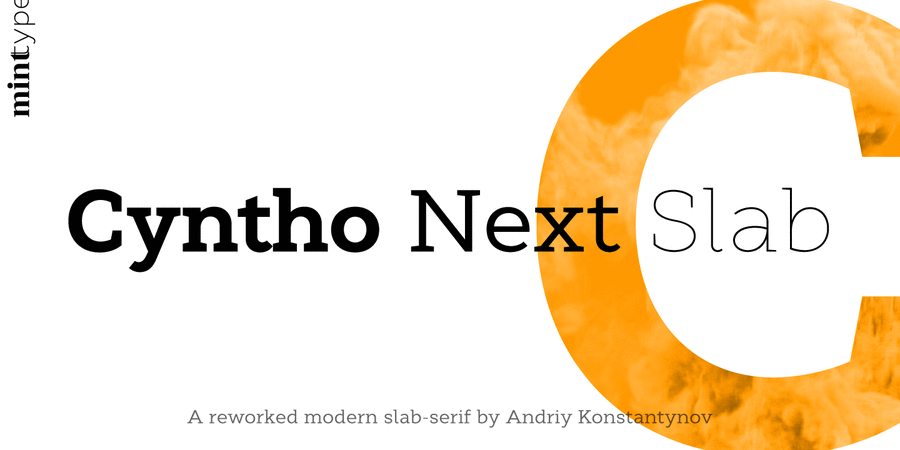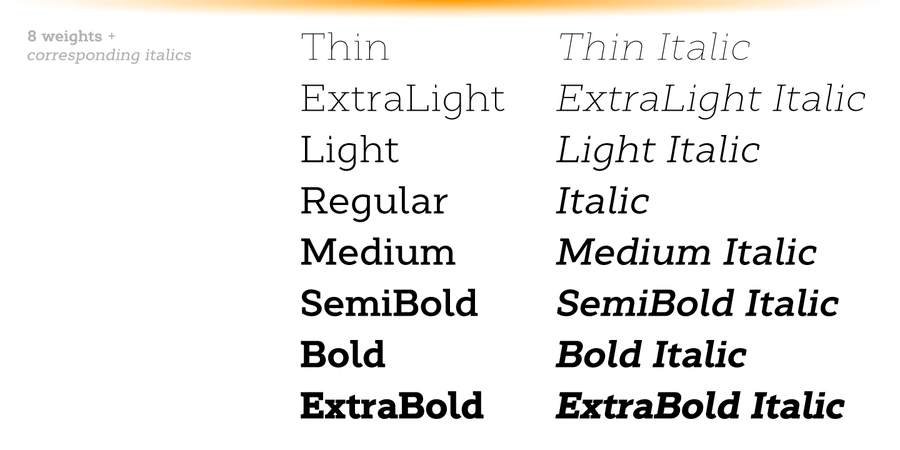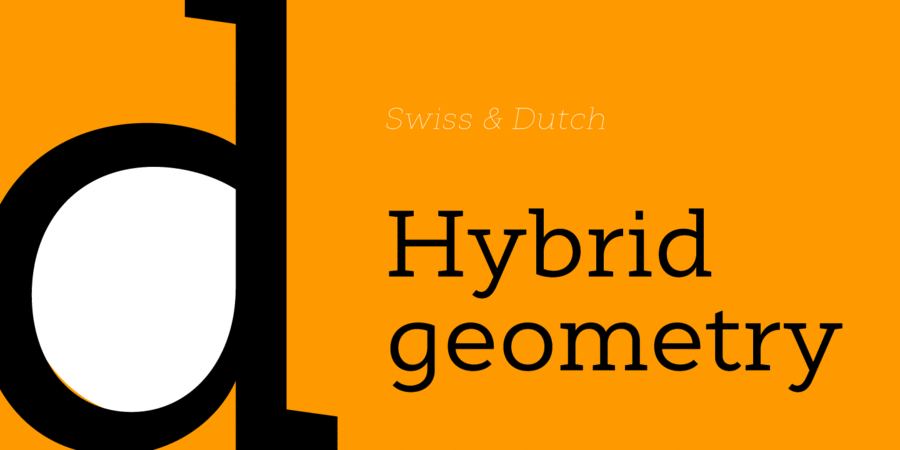
About Cyntho Next Slab is the slab serif companion to Cyntho Next. It’s a modern geometric slab serif based on a hybrid waterdrop-like shape with extensive language support including Cyrillic, rich with OpenType features, perfect for magazines, posters, advertising, corporate identity, and much more.
The typeface was designed by Andriy Konstantynov in 2019.